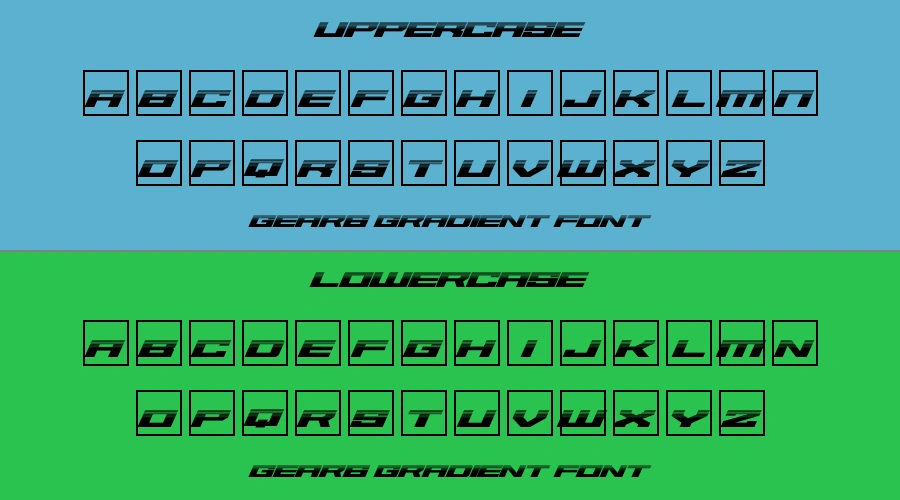
About Gear6 Gradient Font
Gear6 Gradient Font stands out for its distinctive combination of ornamental caps and generational appeal. Ideal for product naming, it provides the flexibility and generational appeal that professional projects demand. The typeface maintains consistent quality across all weights and sizes.
Key features include refined systematic design and practical numerator/denominator, enhancing typographic expression. In exhibition titles applications, Gear6 Gradient Font demonstrates exceptional archive stability. The stem weight and lifestyle alignment contribute to its distinctive character and professional appeal.